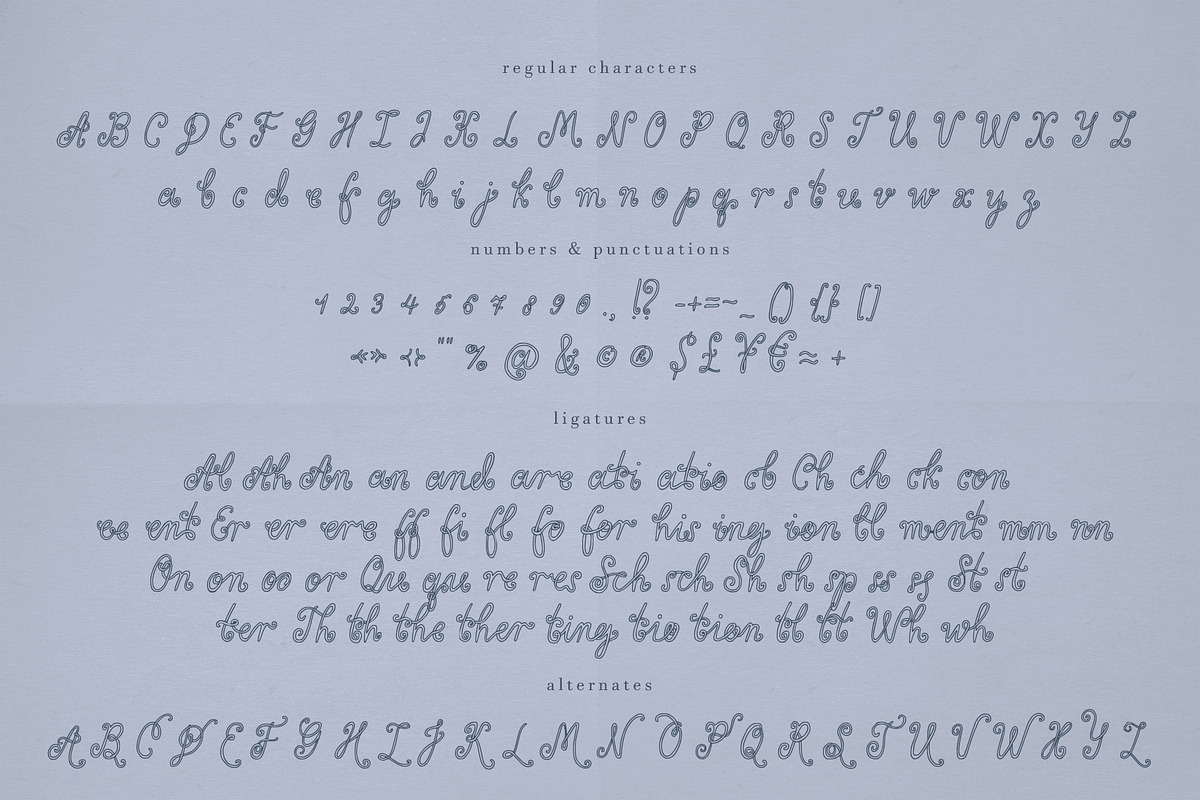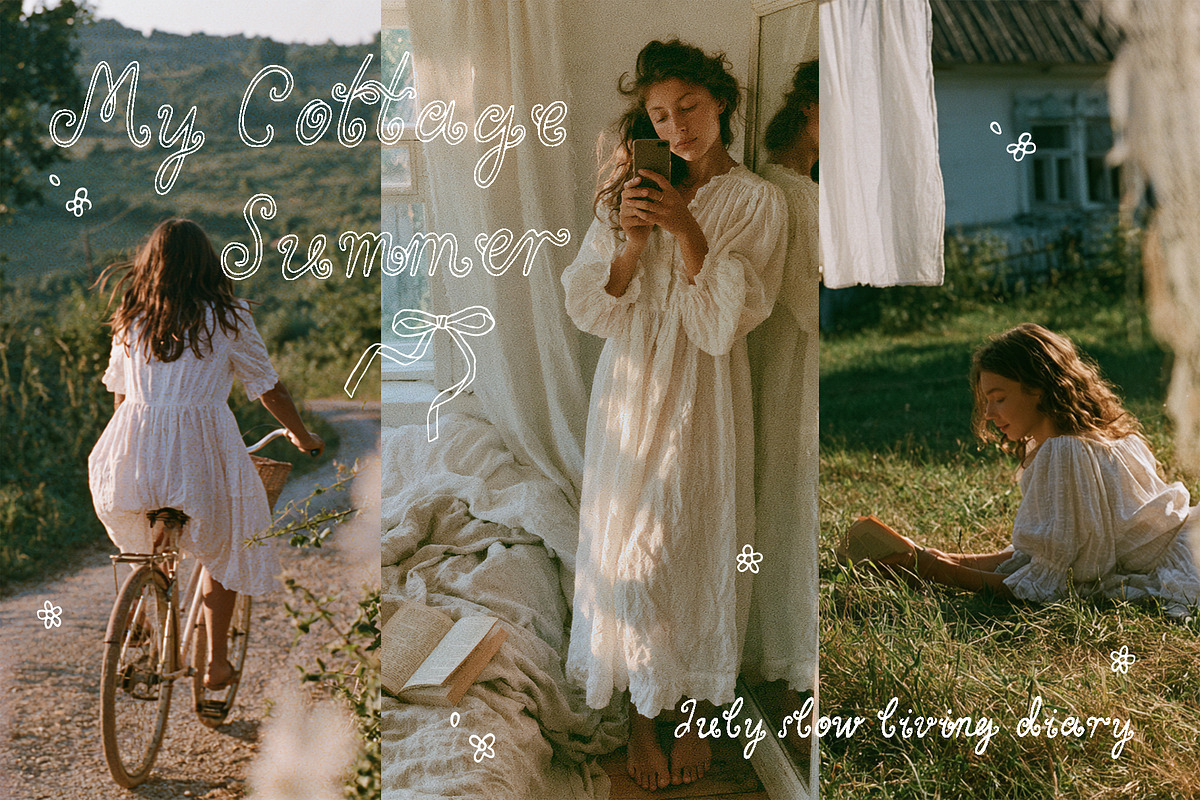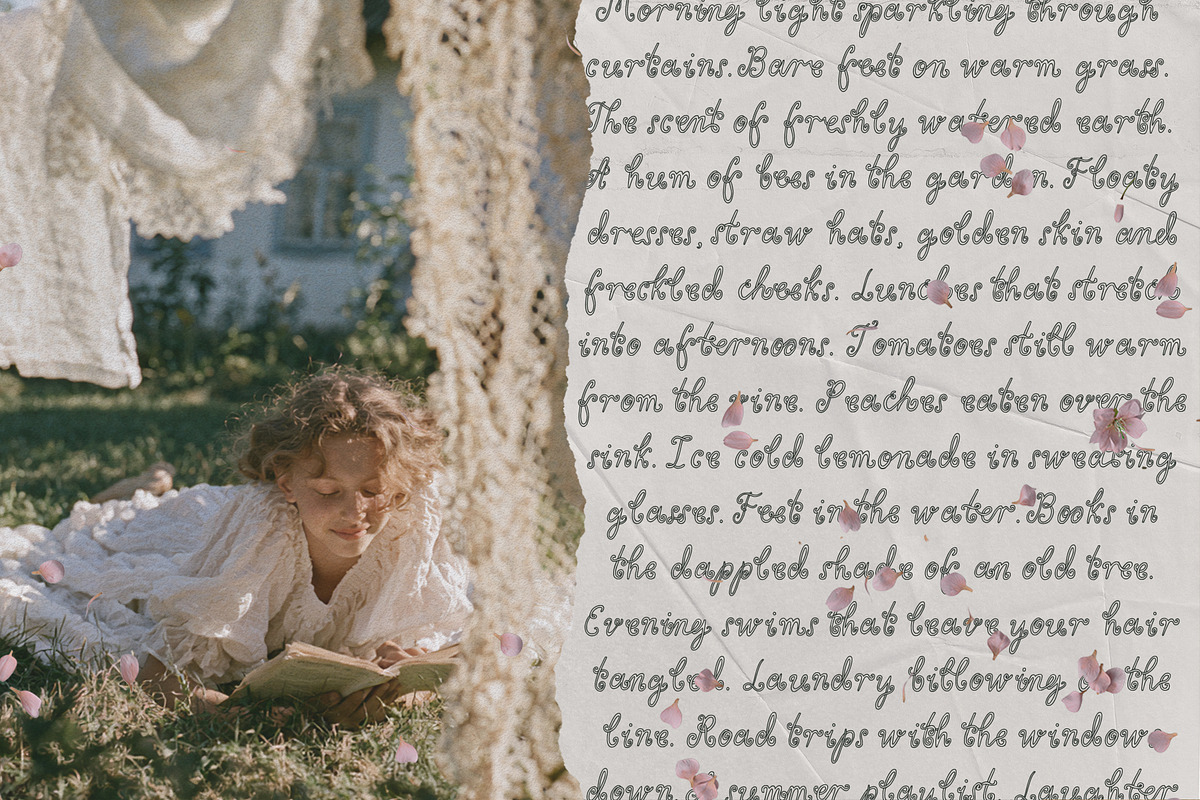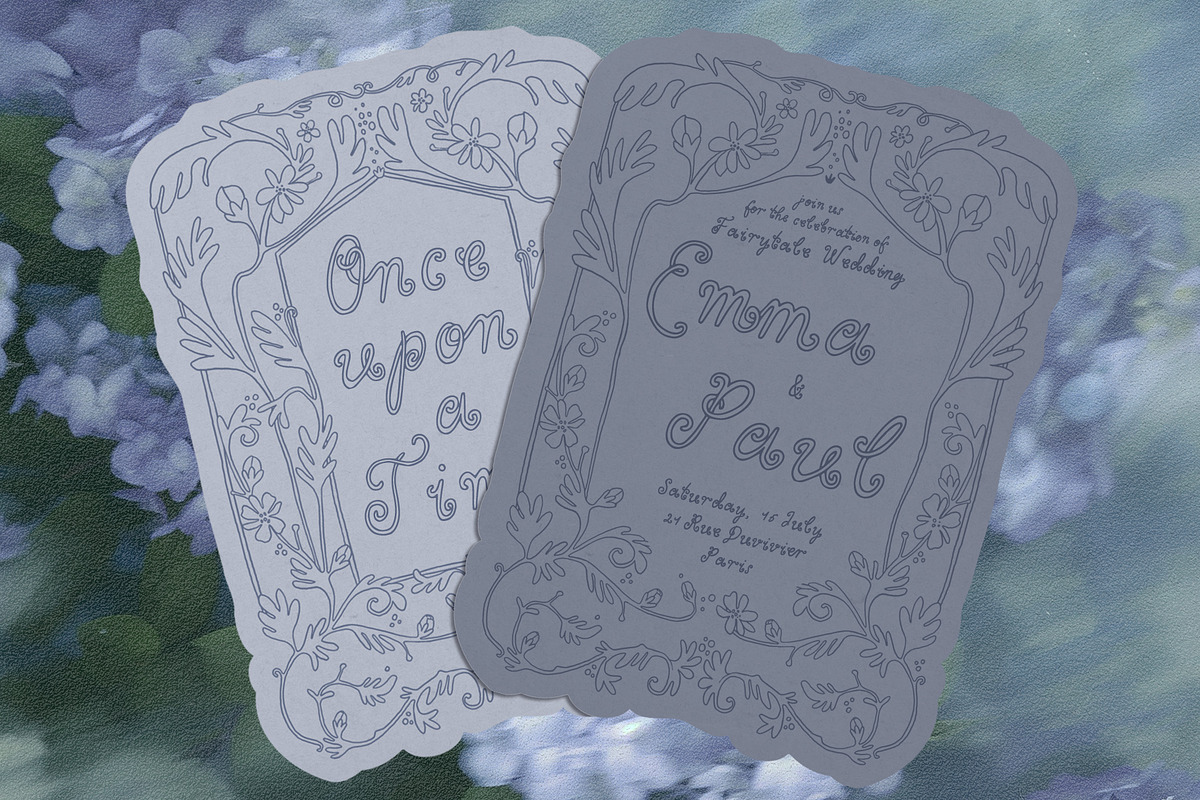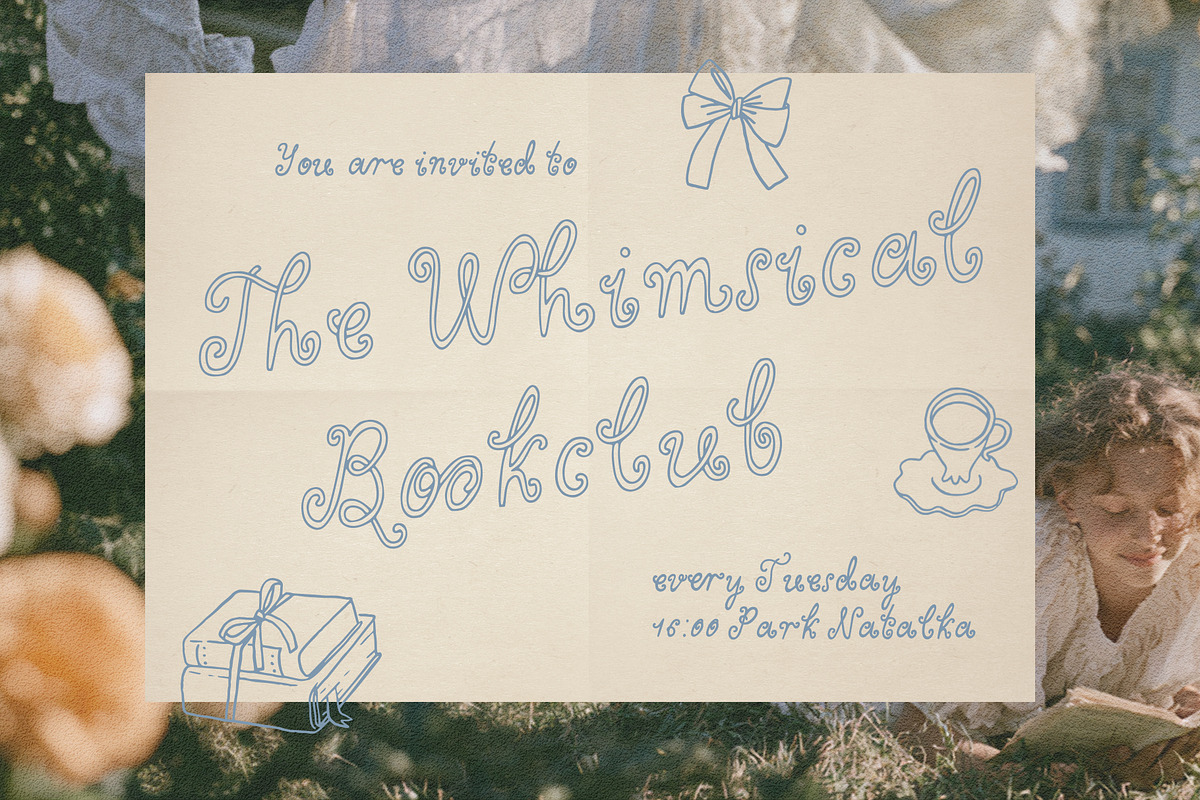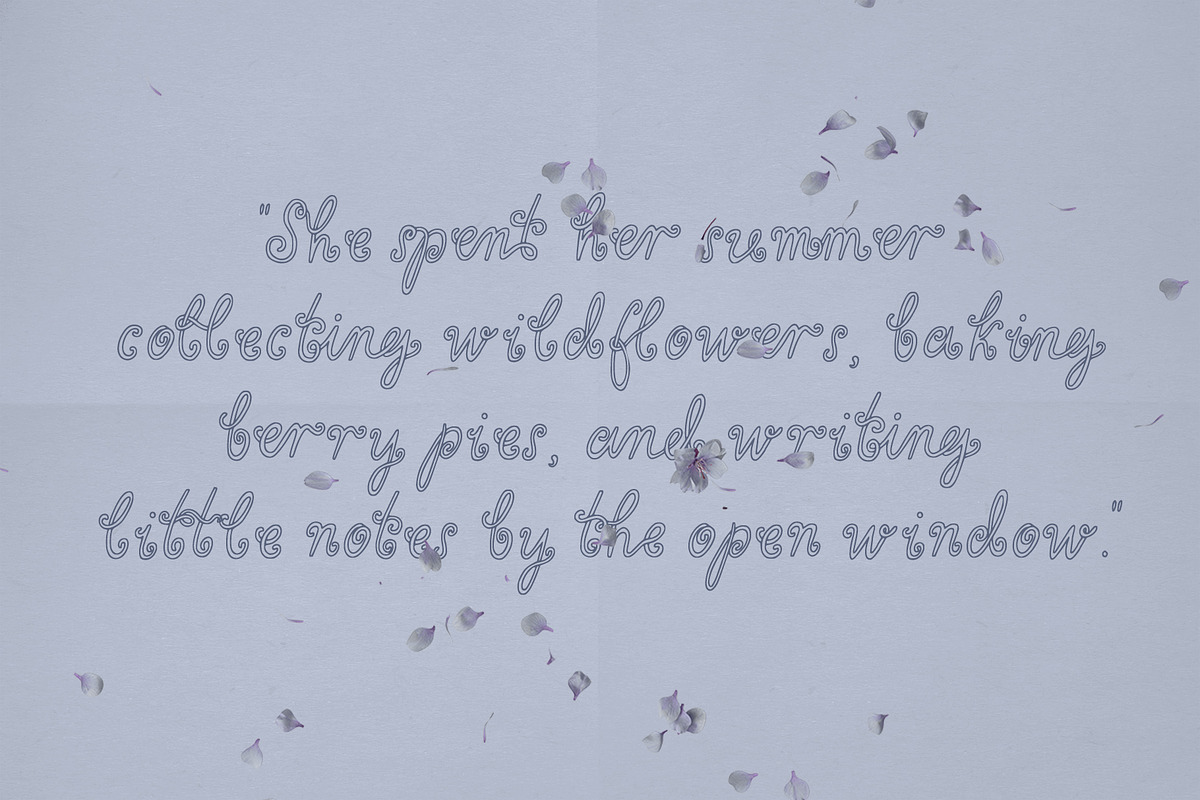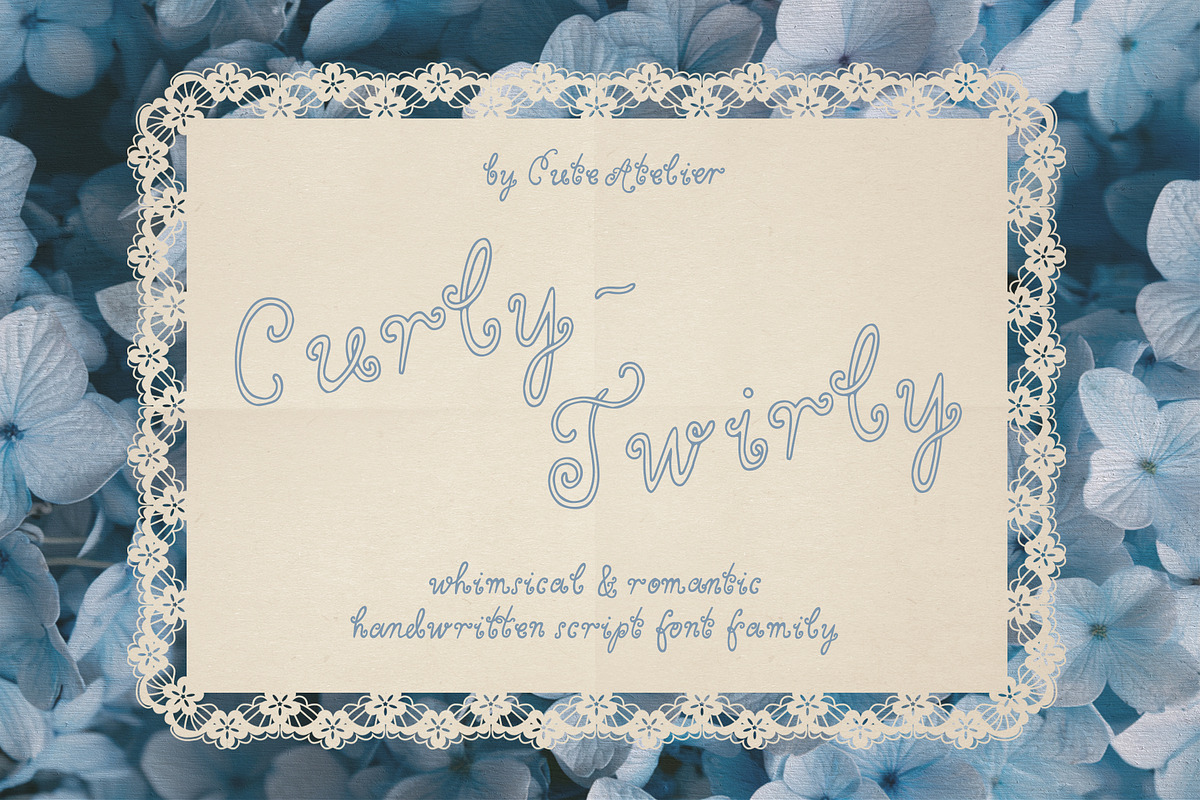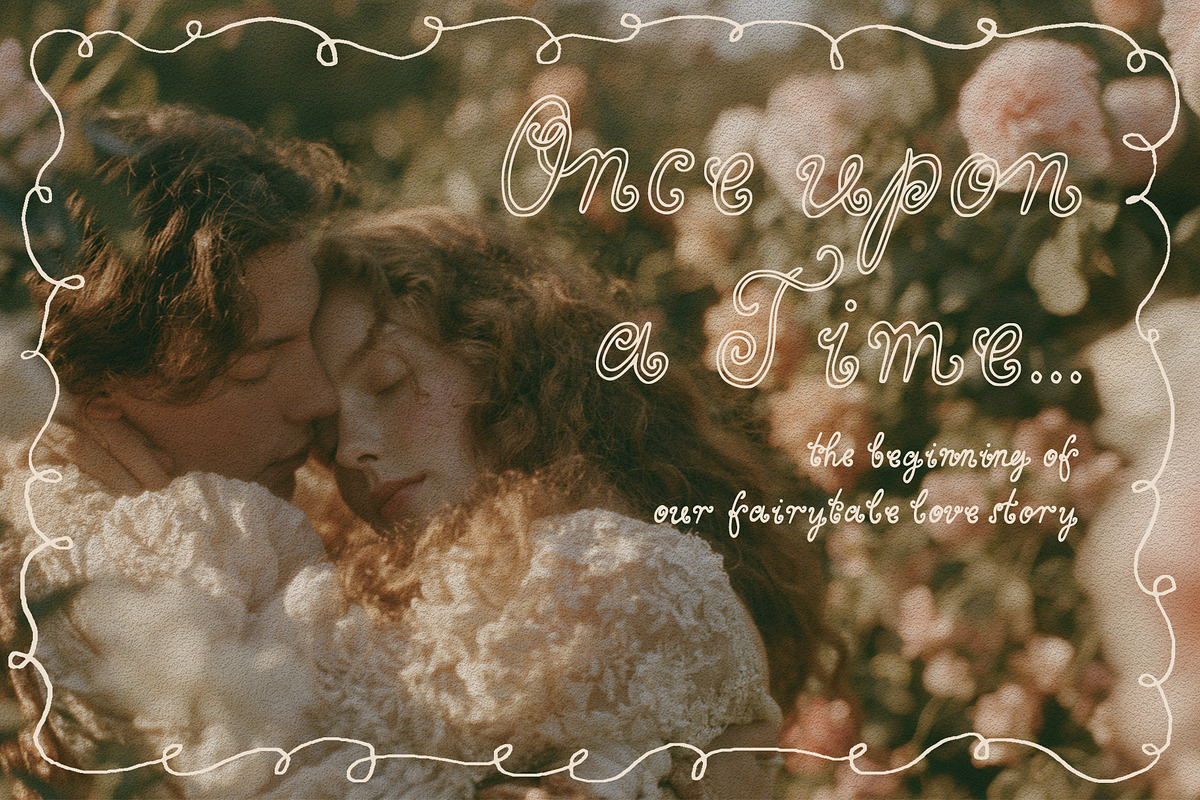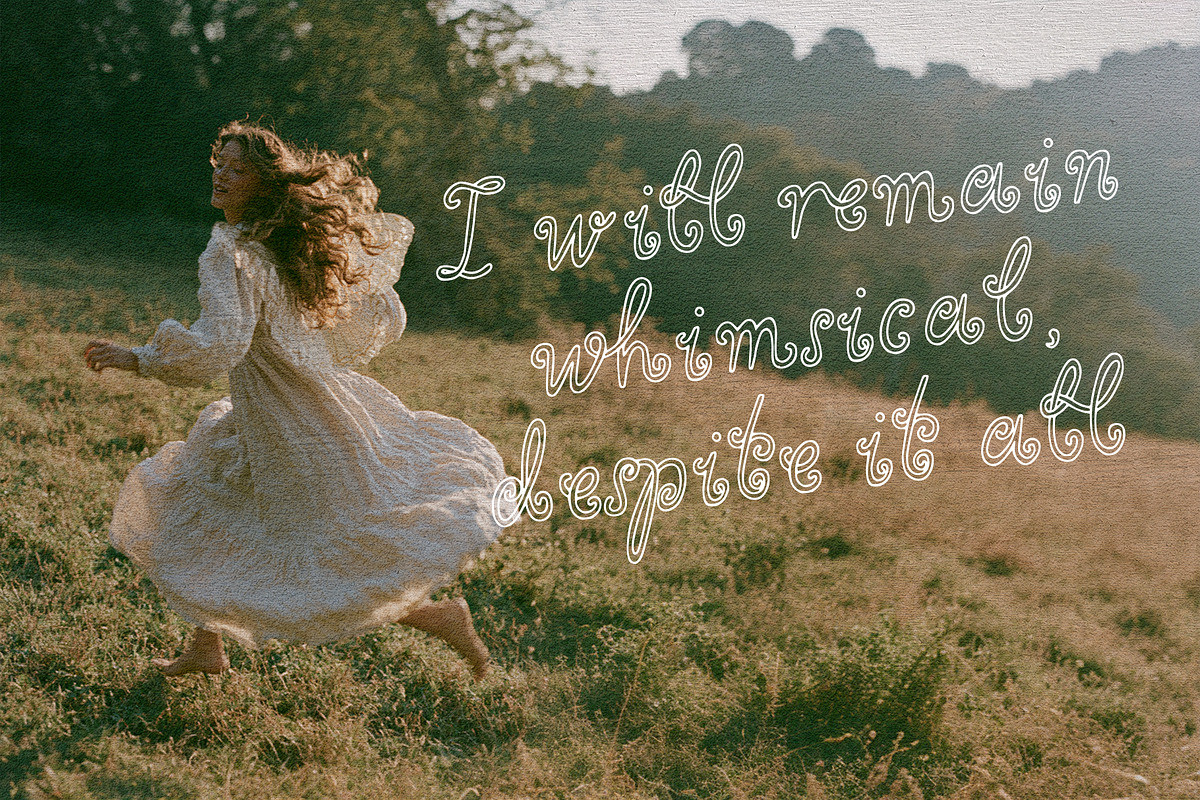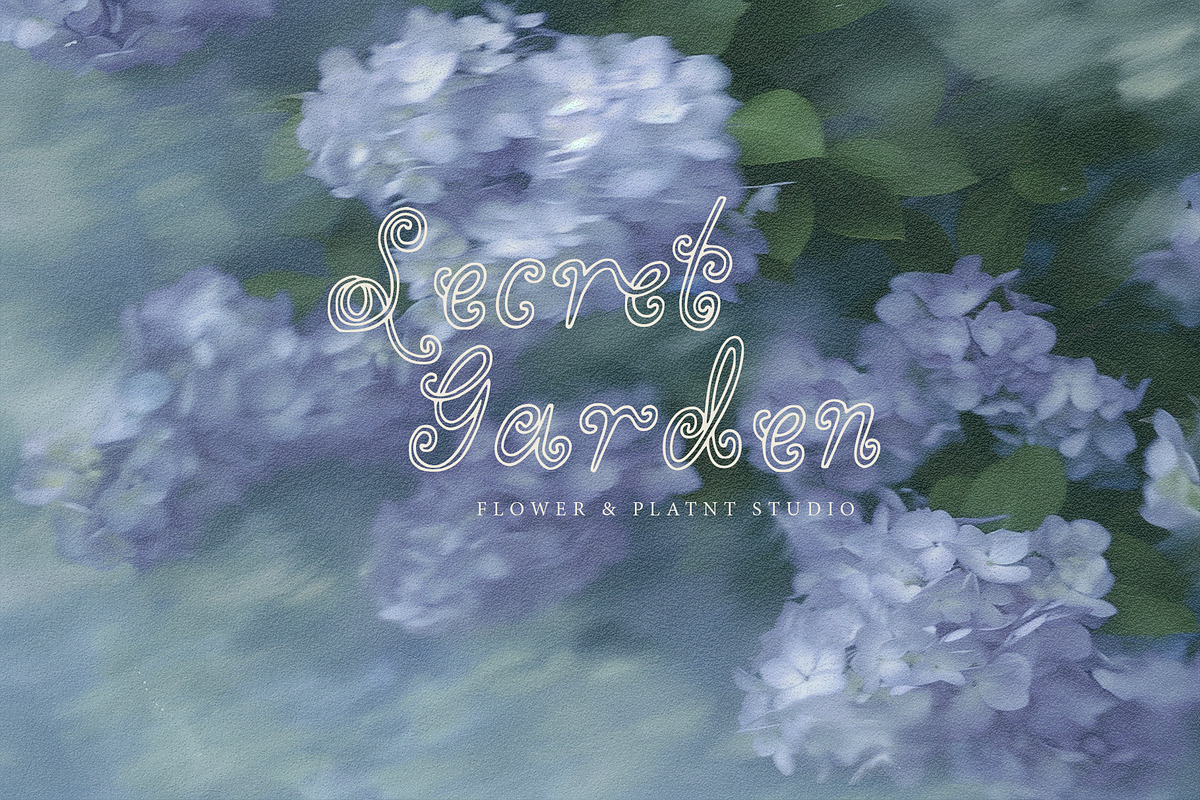
Curly-Twirly Whimsical Font Family
Curly Twirly is a playful handwritten font duo full of whimsical curls and charming.
Inspired by storybooks, vintage labels, cottagecore aesthetics and nostalgic handwritten lettering. Curly Twirly brings warmth and magic to every design.
Includes a regular and an filled version, making it easy to create layered lettering, eye catching titles and unique branding.
Perfect for designers, small businesses, crafters and creatives who love playful and handmade typography.
Use it for:
branding, wedding Invitations, greeting cards, children's books, baby shower designs, café & bakery branding, cottagecore & whimsical designs, scrapbooking, DIY & cricut projects and more.